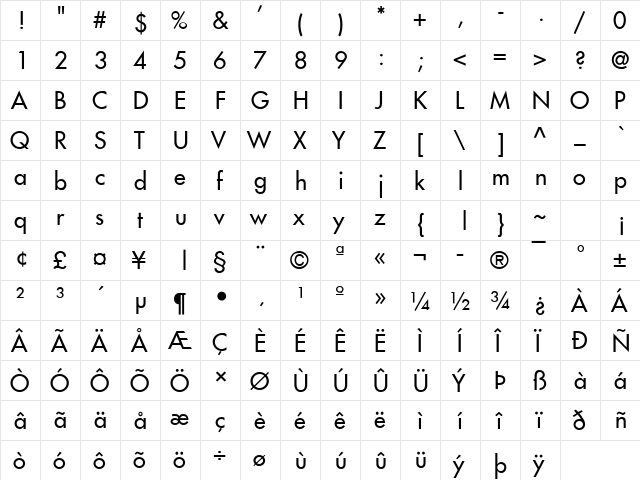
Fusi Normal
Design Context for Fusi Typeface
Fusi is a composed and adaptable typeface that performs quietly and consistently across a wide range of design contexts.